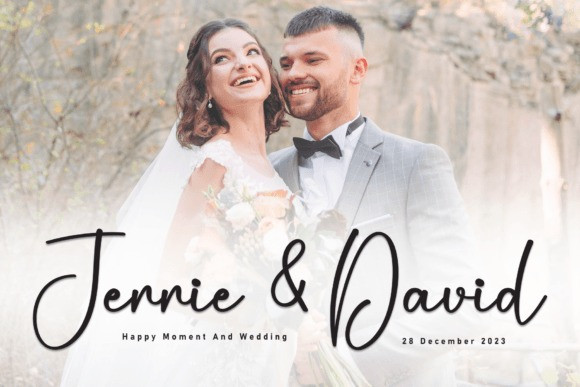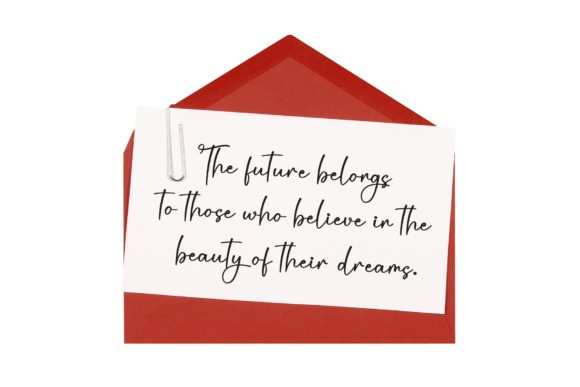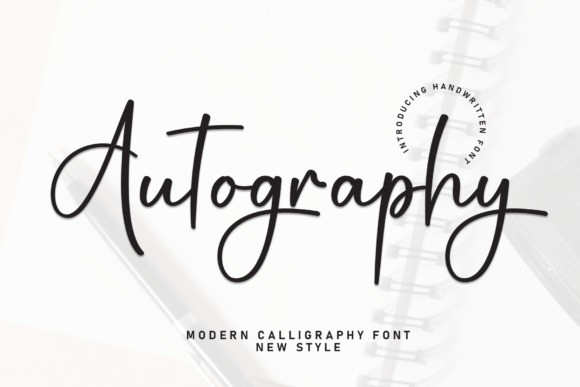
Autography Handwriting Typeface
Autography Handwriting Typeface is a sweet and friendly handwritten font. Its natural and unique style makes it incredibly fitting to a large pool of designs. The only limit is your imagination!